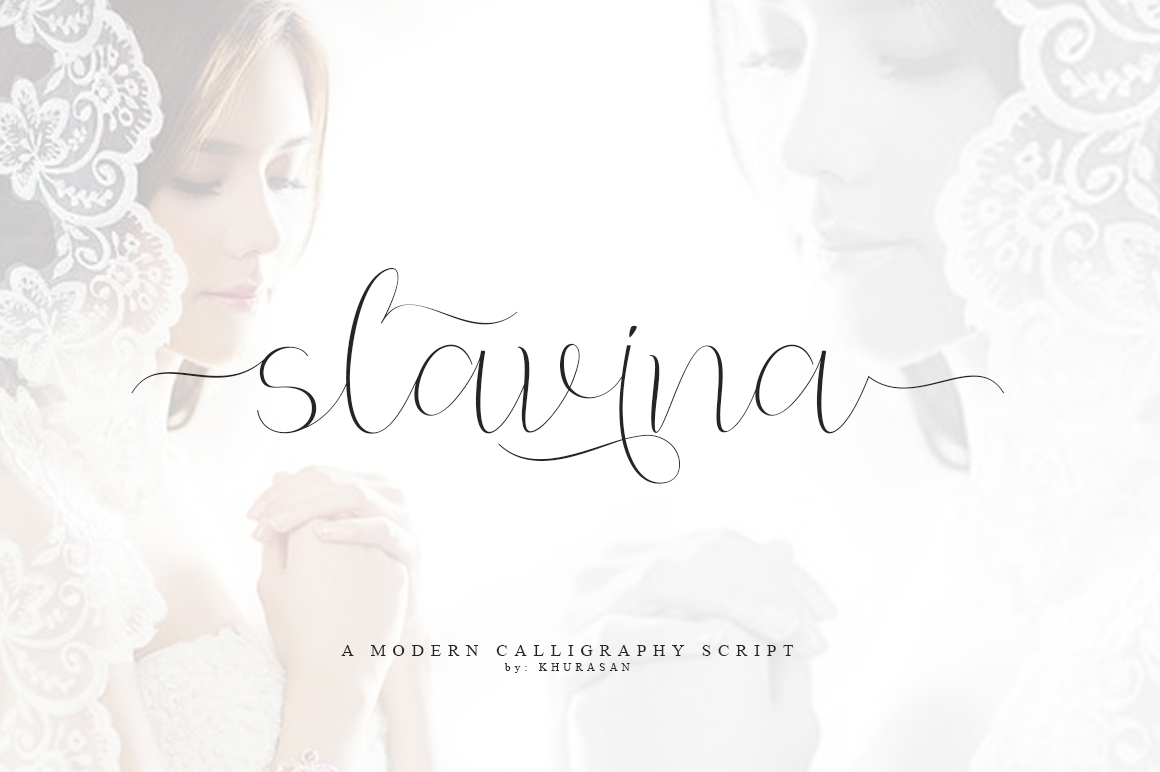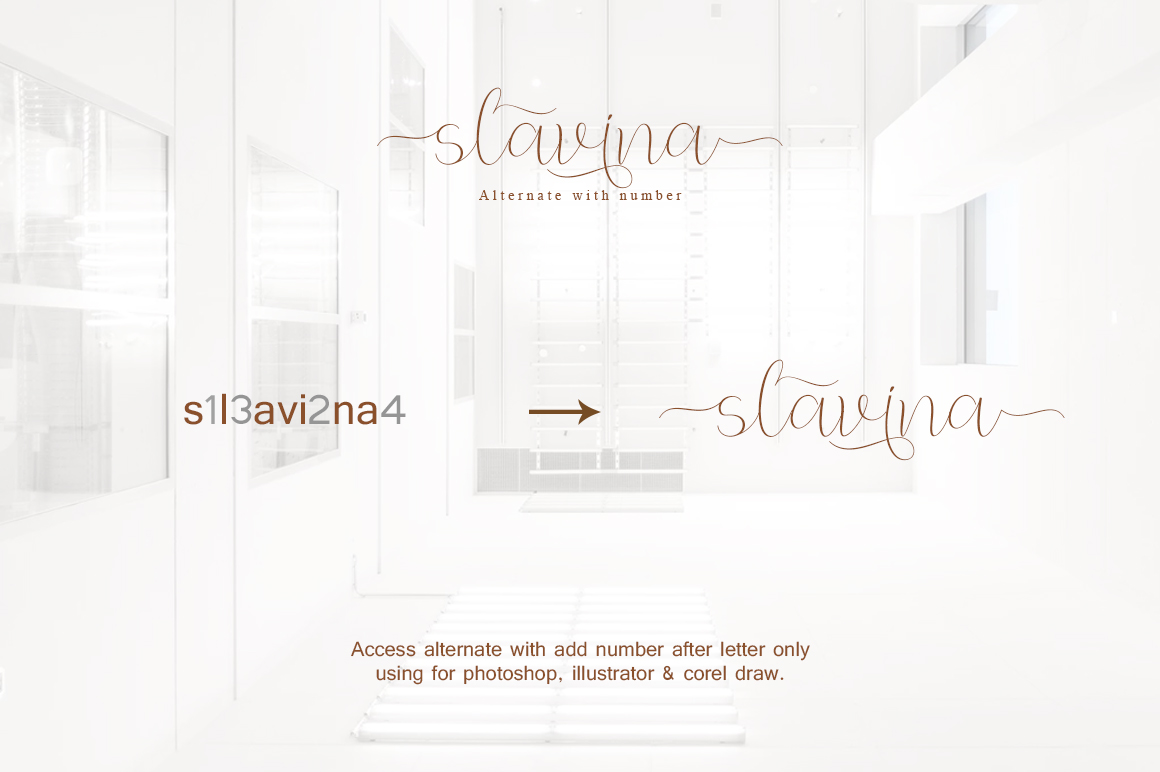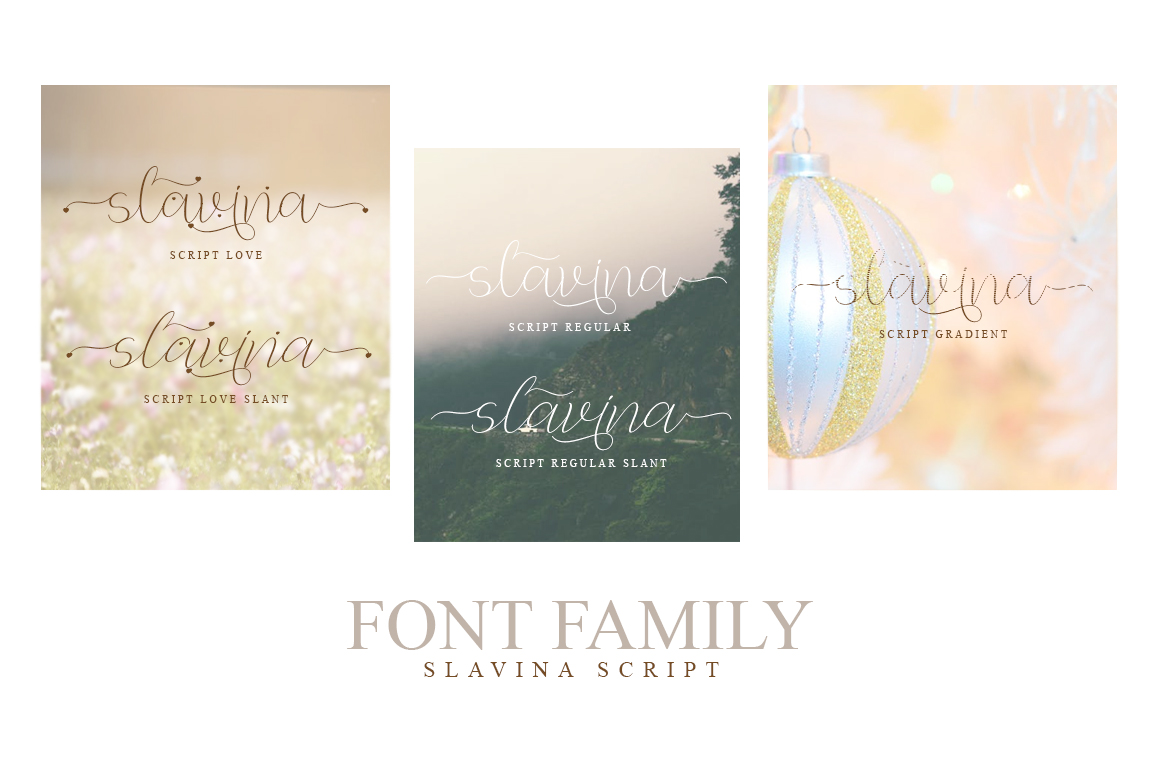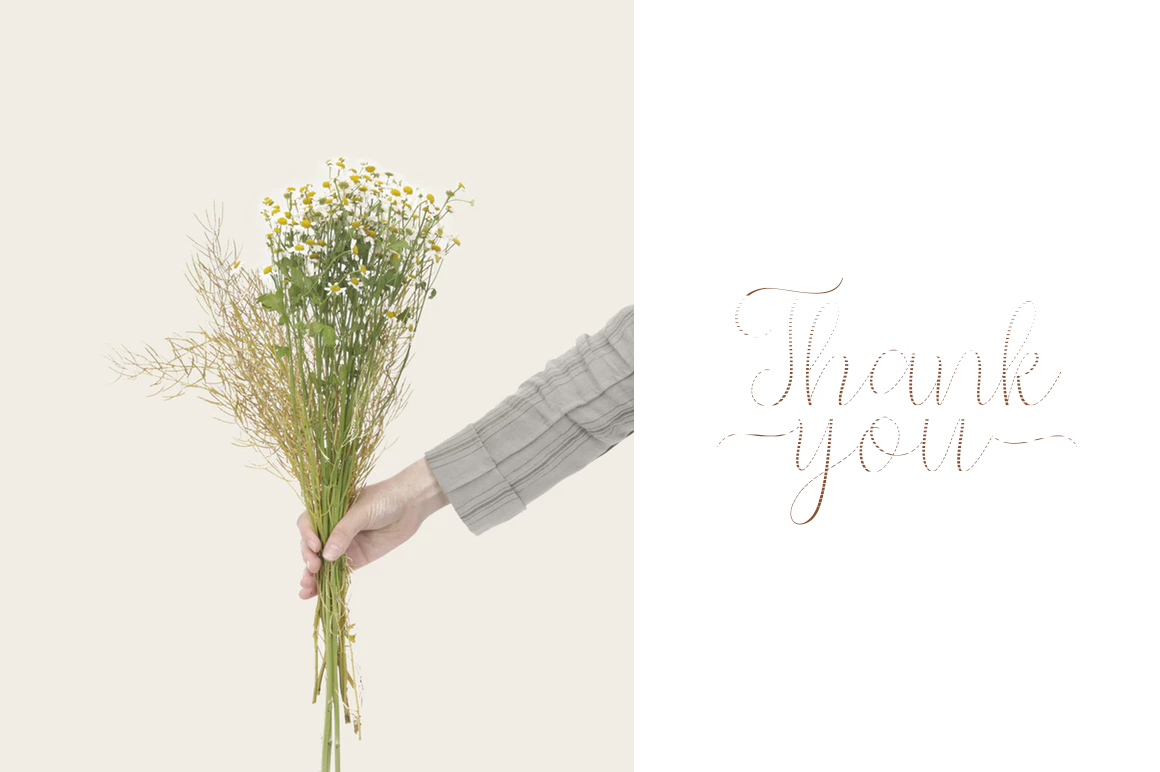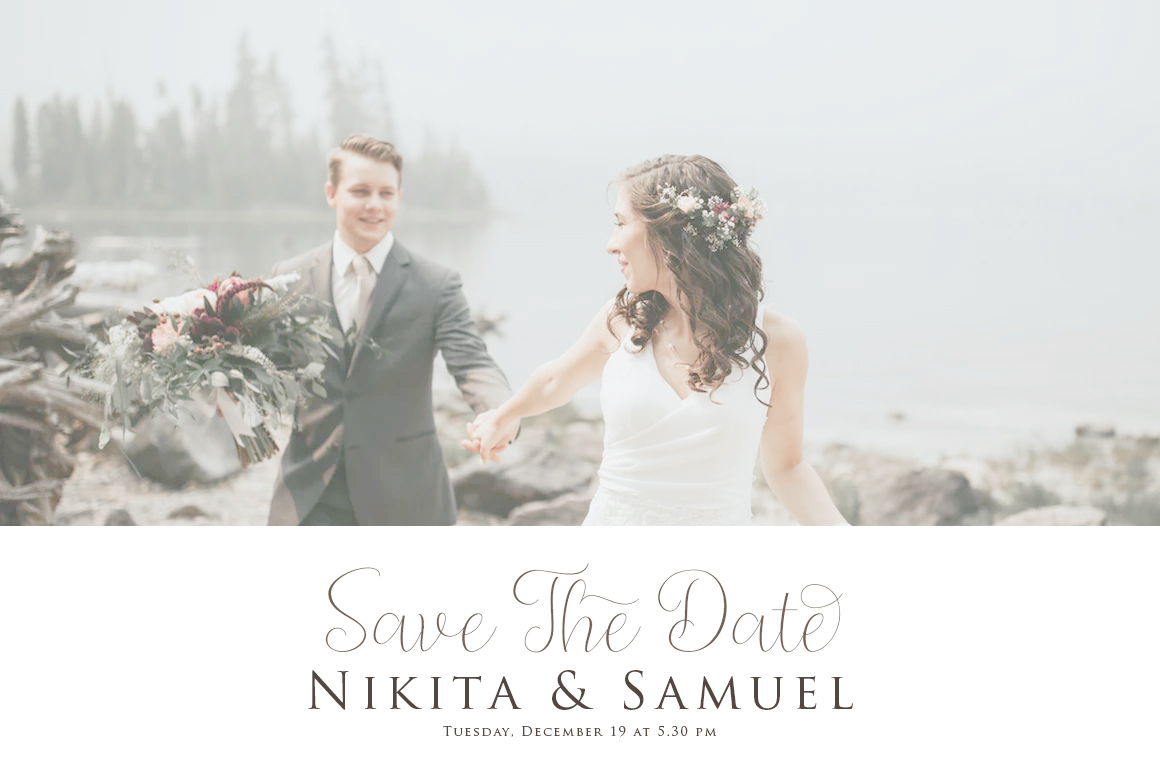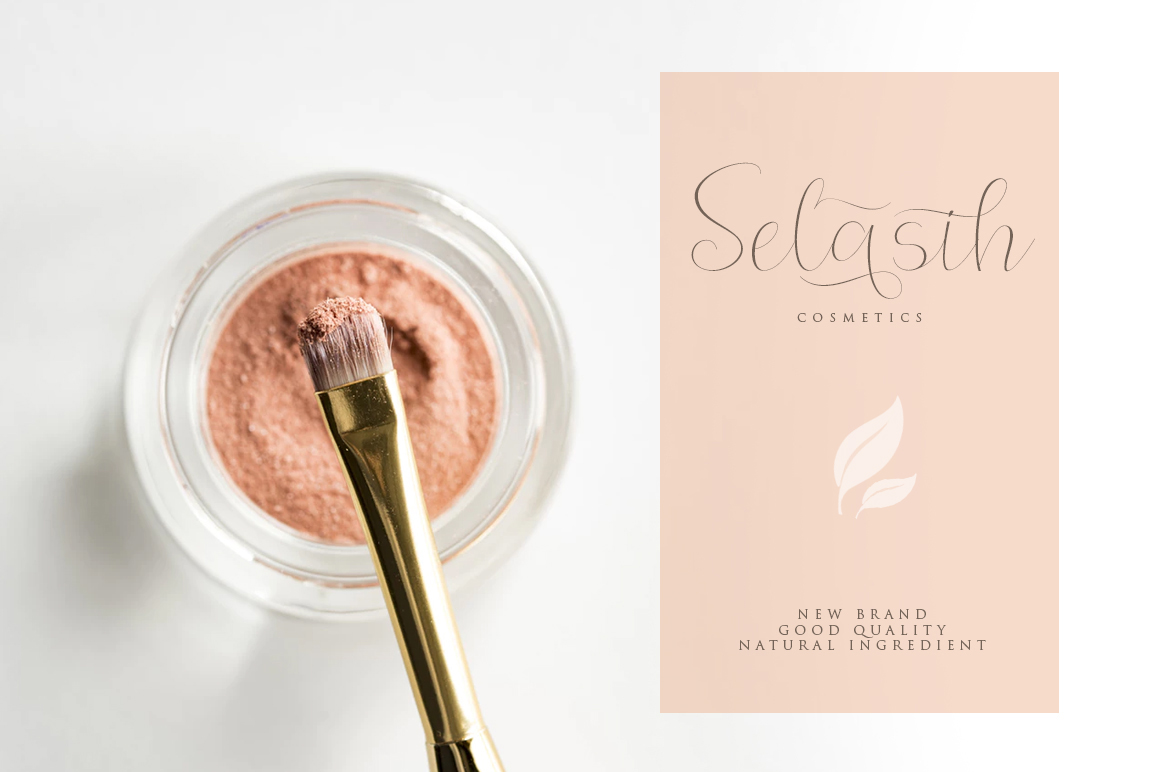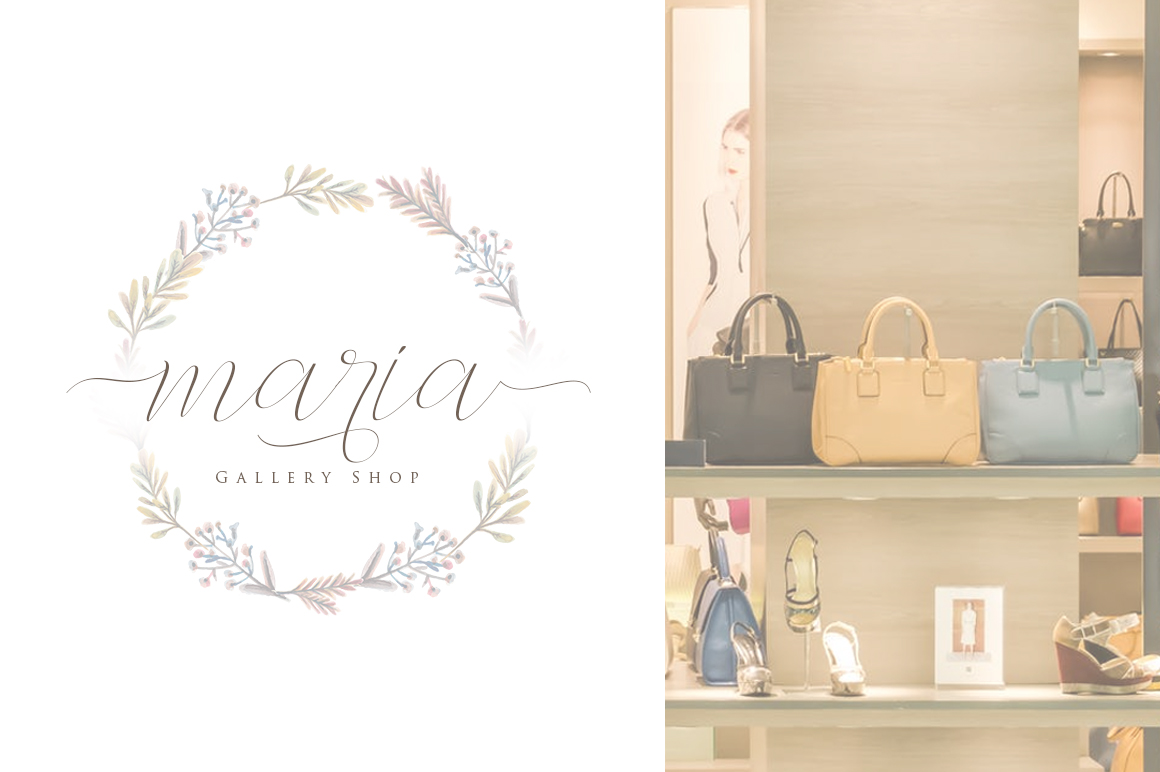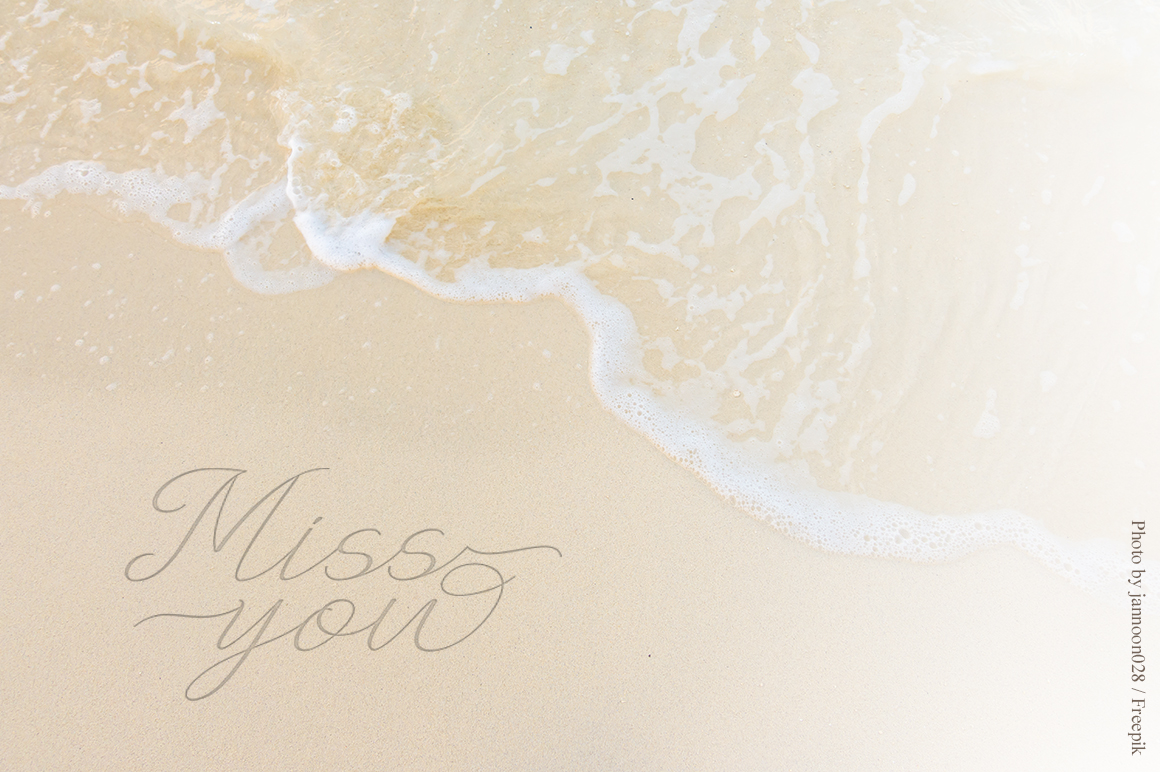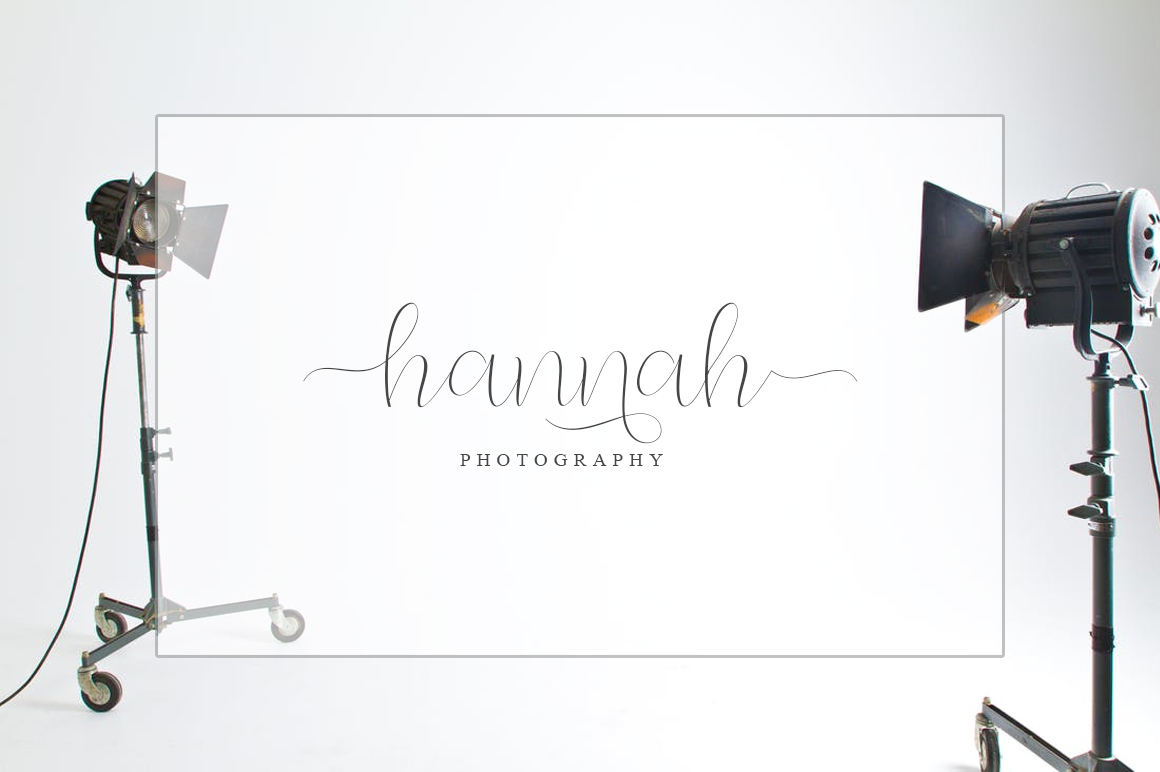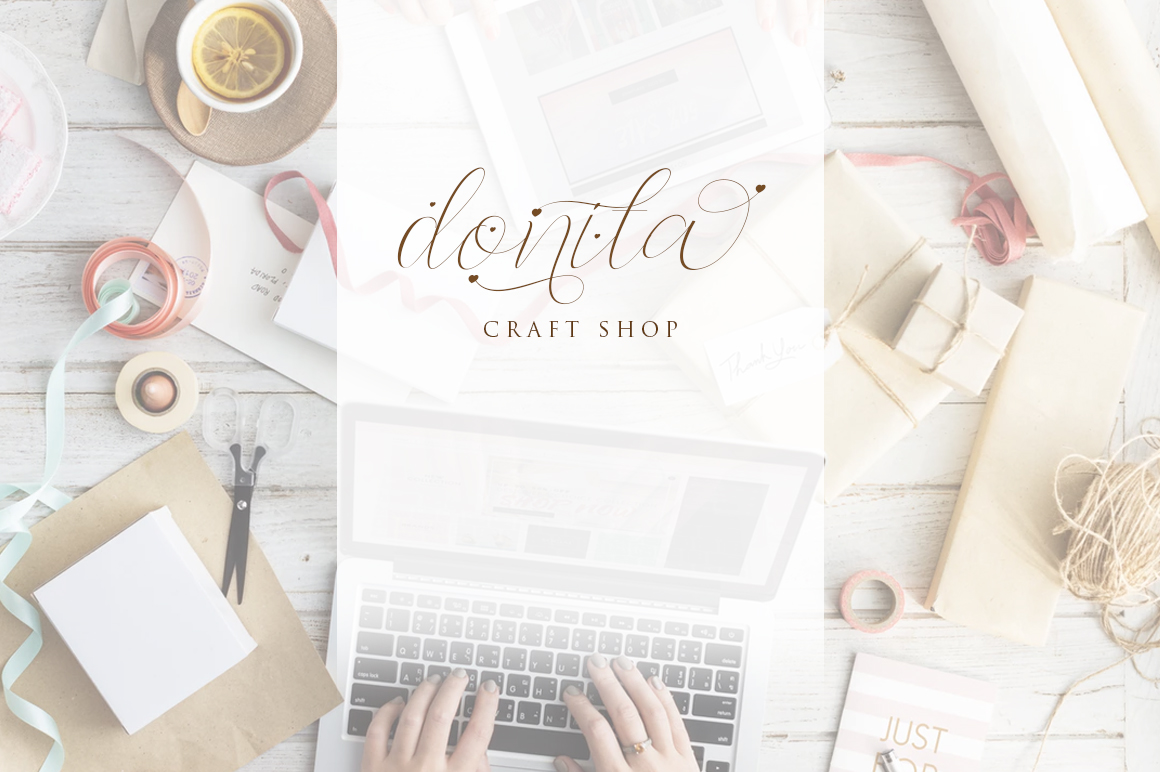
Slavina Script Font
About Slavina Script Font
Slavina Script is a beautiful handmade script font. This modern calligraphy is fresh and romantic, and would look absolutely stunning along a wide range of designs.